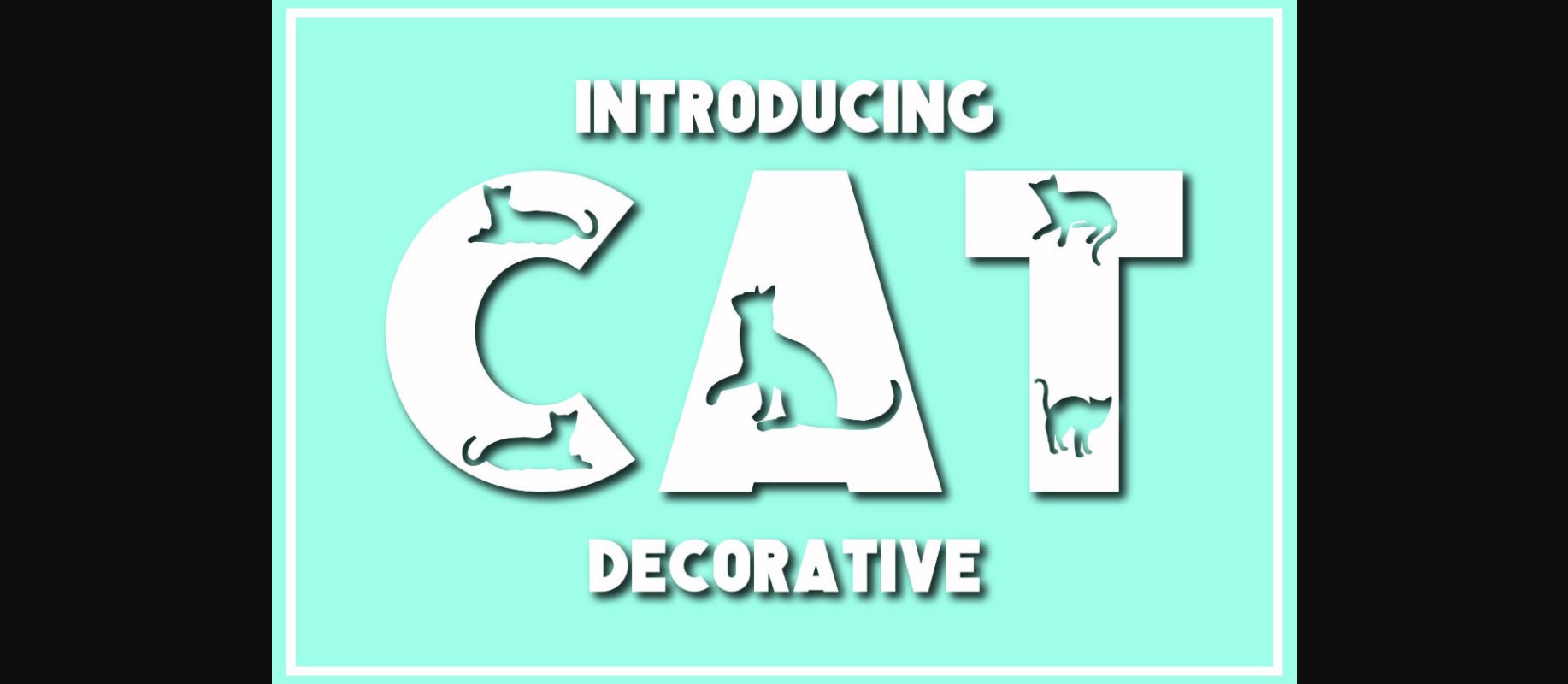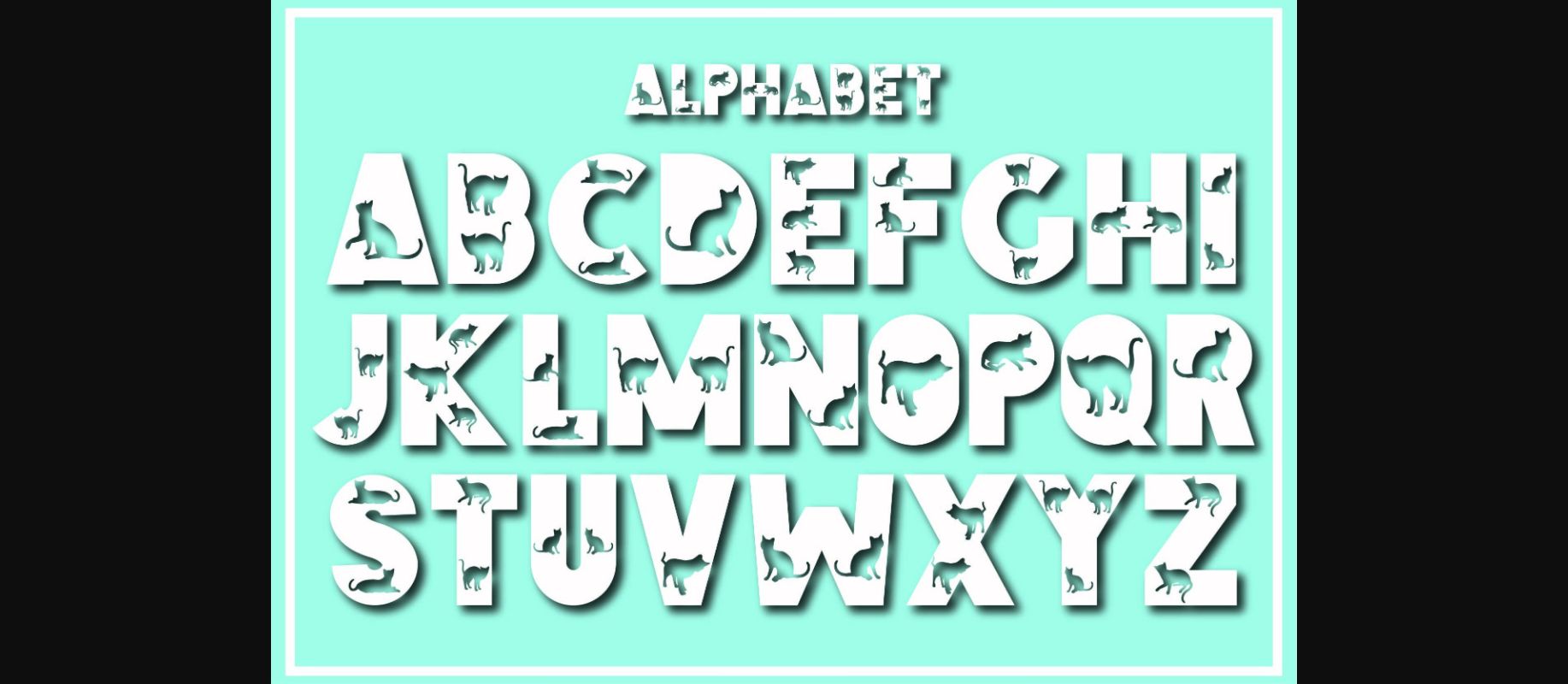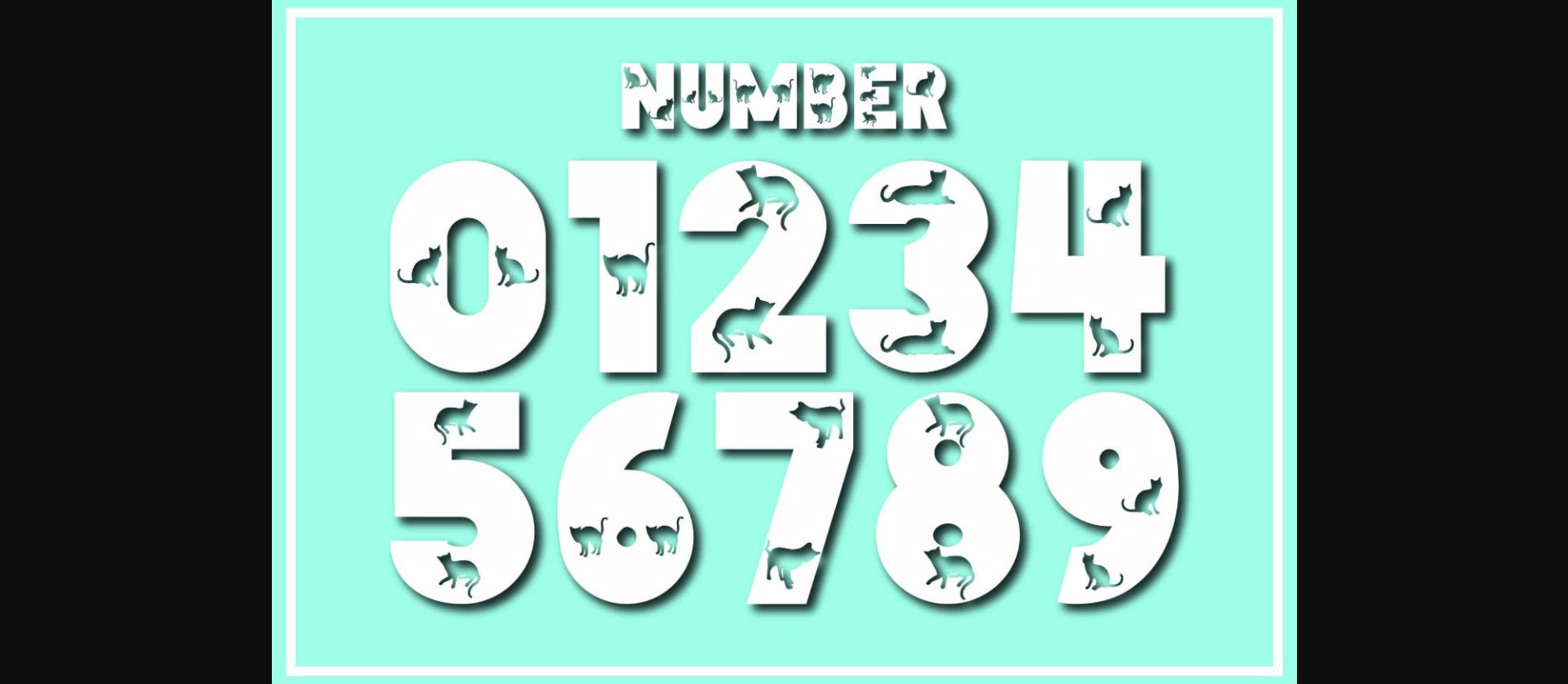
HomeDecorative FontsCat Font Decorative Fonts Cat Font FacebookXPinterestWhatsApp 1 of 5 ... Cat Font Poster 2... Cat Font Poster 3... Cat Font Poster 4... Cat Font Poster 5... About Cat Font Cat is a cool and friendly decorative font. Whether you use it for cartoon-related designs, children’s games, or just any creation that requires a lovely touch, this font will be an amazing choice. DOWNLOAD NOW People also explored All Alyssa Font Karantina Font Casanova Font Sreboc Font Stay Home Font Split Font Naava Shania Font King Billy Font 321 0 TagsCatCat Font Previous articleOrheka FontNext articleGiving God Font LEAVE A REPLY Cancel reply Comment: Please enter your comment! Name:* Please enter your name here Email:* You have entered an incorrect email address! Please enter your email address here Website: Save my name, email, and website in this browser for the next time I comment. Personal Use Free Angelika Playful Personal Use Free Read more about this font Arc Personal Use Free Read more about this font White Rose Personal Use Free Read more about this font The Quick Personal Use Free Read more about this font BLOG 5 Fonts That Will Dominate Design Trends in 2026 5 Fonts for 2026 That Will Dominate Design Trends Typography plays a critical role in visual communication, and as we look ahead to 2026, it’s... Transform Your Website: Elevate Your Typography with 7 Best Web Font Generators Best Fonts for T-Shirt Design – Top 2025 Picks To increase your work productivity, choose the most readable fonts.